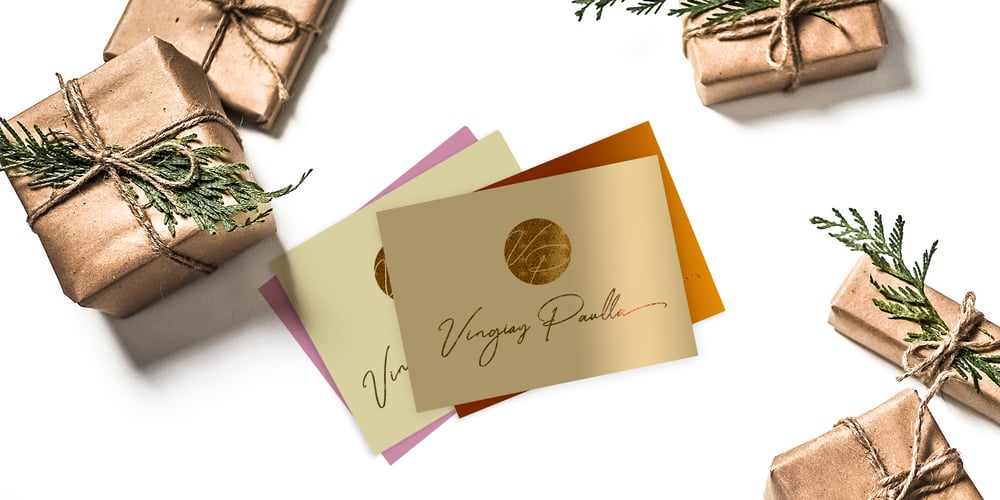
Caramello Font Family was designed by Ferry Hadriyan and published by FHFont. Caramello contains 1 styles and family package options. Caramello is a handwritten script font with signature style. Suitable for element design, weddings, events, t-shirts, logos, badges, stickers, and other awesome work.